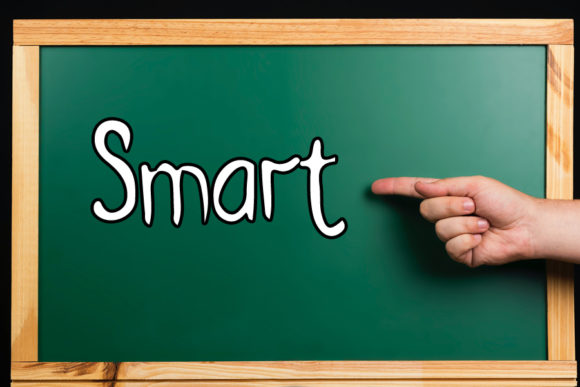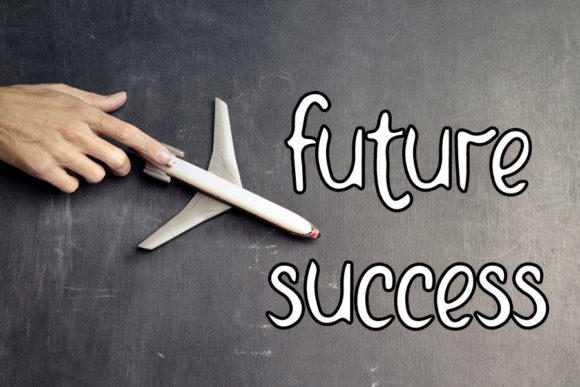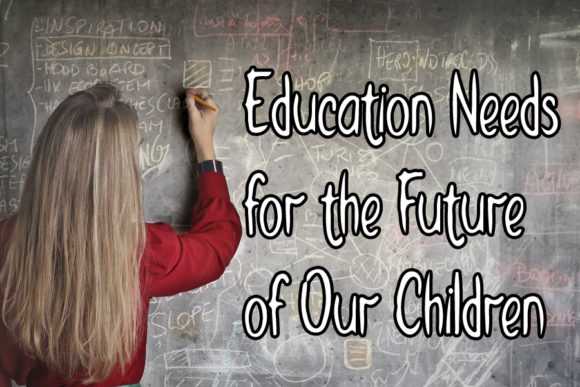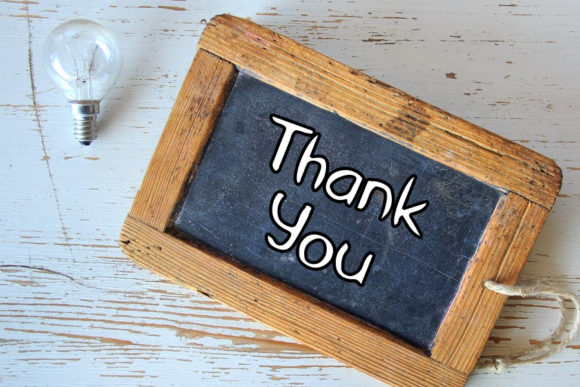
Get Ready to Impress with the Perfect Back to School Font
As a designer, there’s nothing quite like the thrill of brainstorming new ideas for a project. You’re sipping your morning coffee, flipping through design blogs, and suddenly – it hits you. The perfect concept, the perfect style, and the perfect font. For many of us, that font is the key to making our designs truly stand out.
Introducing the Back to School Font, a simple, clean, and modern display font that’s perfect for a wide range of projects. Whether you’re creating a marketing brochure, a school newsletter, or even a fun social media graphic, this font is sure to bring a fresh and modern touch to your design. And with its versatility, you can easily match it to an incredibly large set of projects – making it a valuable addition to any designer’s toolkit.
Back to School Font Key Features
- Unique Characteristics: The Back to School Font features a playful, handwritten style with a mix of cursive and print elements, making it perfect for educational and creative projects.
Designer Review: Back to School Font
Overall, I think “Back to School Font” has some great qualities that make it a decent choice for educational materials, but it’s not without its flaws. Let’s dive in and see what works well.
- Fun and playful vibe: The font’s design is perfect for creating a lighthearted atmosphere, making it suitable for younger audiences.
- Good for titles and headings: The font’s bold and chunky design makes it stand out well in titles and headings.
- Wide character set: The font includes a wide range of characters, including special symbols and punctuation marks.
- Readability issues: At smaller font sizes, the font can be difficult to read due to its irregular letterforms.
- Limited flexibility: The font is quite loud and may not be suitable for more formal or professional materials.
Overall, I think “Back to School Font” is a solid choice for educational materials, but it may not be the best fit for every project. With some careful consideration of its limitations, it can add a fun and playful touch to your designs.
Getting the Most Out of the Back to School Font
Use the Back to School Font for educational and promotional materials, such as posters, flyers, and social media graphics.
– Use bold font to emphasize important information.
– Experiment with different font sizes and colors to create visual interest.
– Combine the font with images and graphics to create engaging designs.
The Back to School Font is ideal for:
– School promotions and advertising
– Educational materials and resources
– Event flyers and posters
– Website headers and footers
Alternatives to “Back to School Font” for Designers
Great Vibes is a modern, elegant script font that is perfect for designers looking for a stylish and sophisticated feel. It features a flowing, handwritten aesthetic that is ideal for titles, headings, and quotes. Unlike Back to School Font, which has a more playful and childlike tone, Great Vibes Font is more mature and refined.
Alex Brush is a beautiful, handwritten font that is reminiscent of a brush-painted sign. It features a unique, cursive style that is perfect for designers looking for a touch of elegance and sophistication. Unlike Back to School Font, which is more playful and casual, Alex Brush Font is more refined and luxurious.